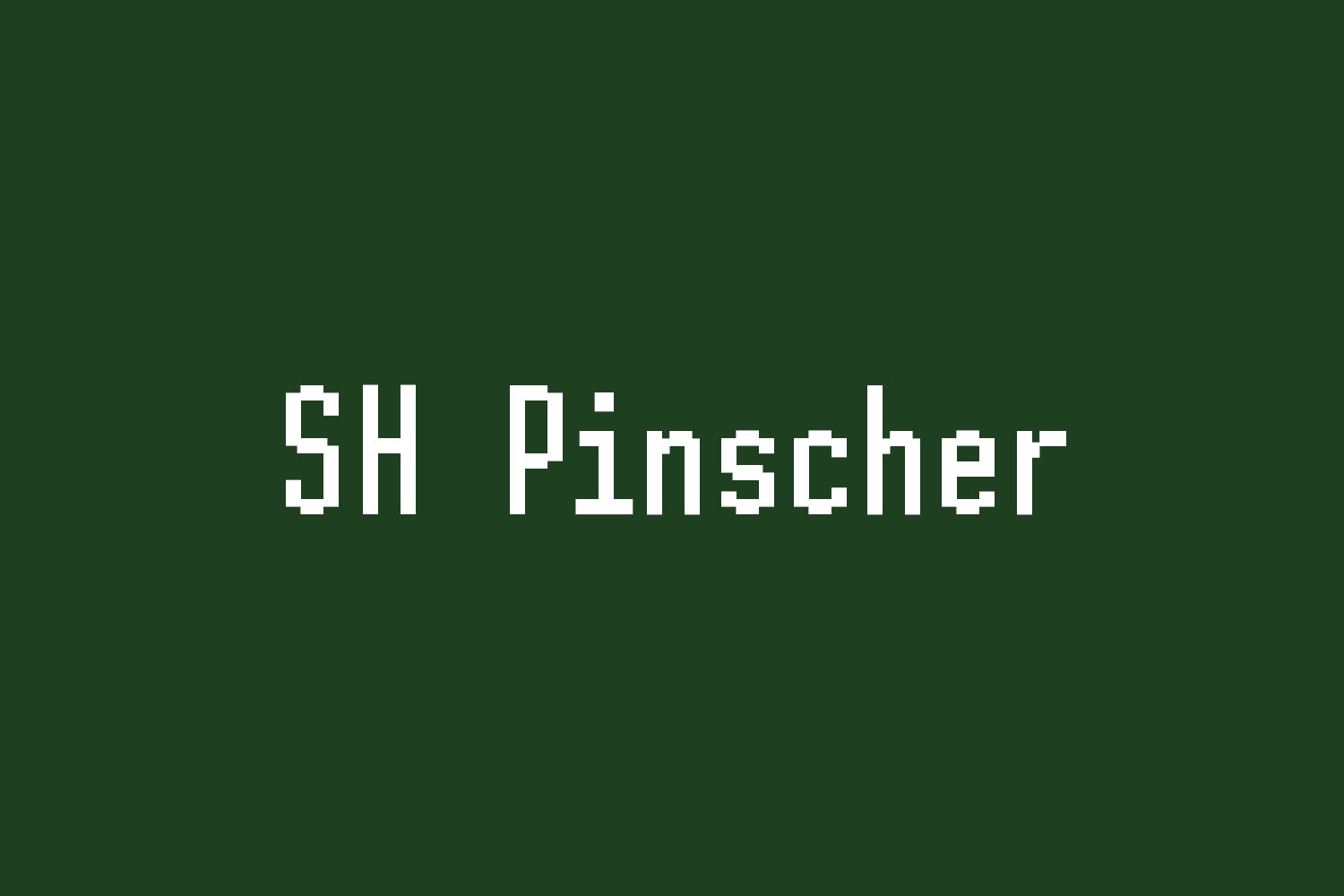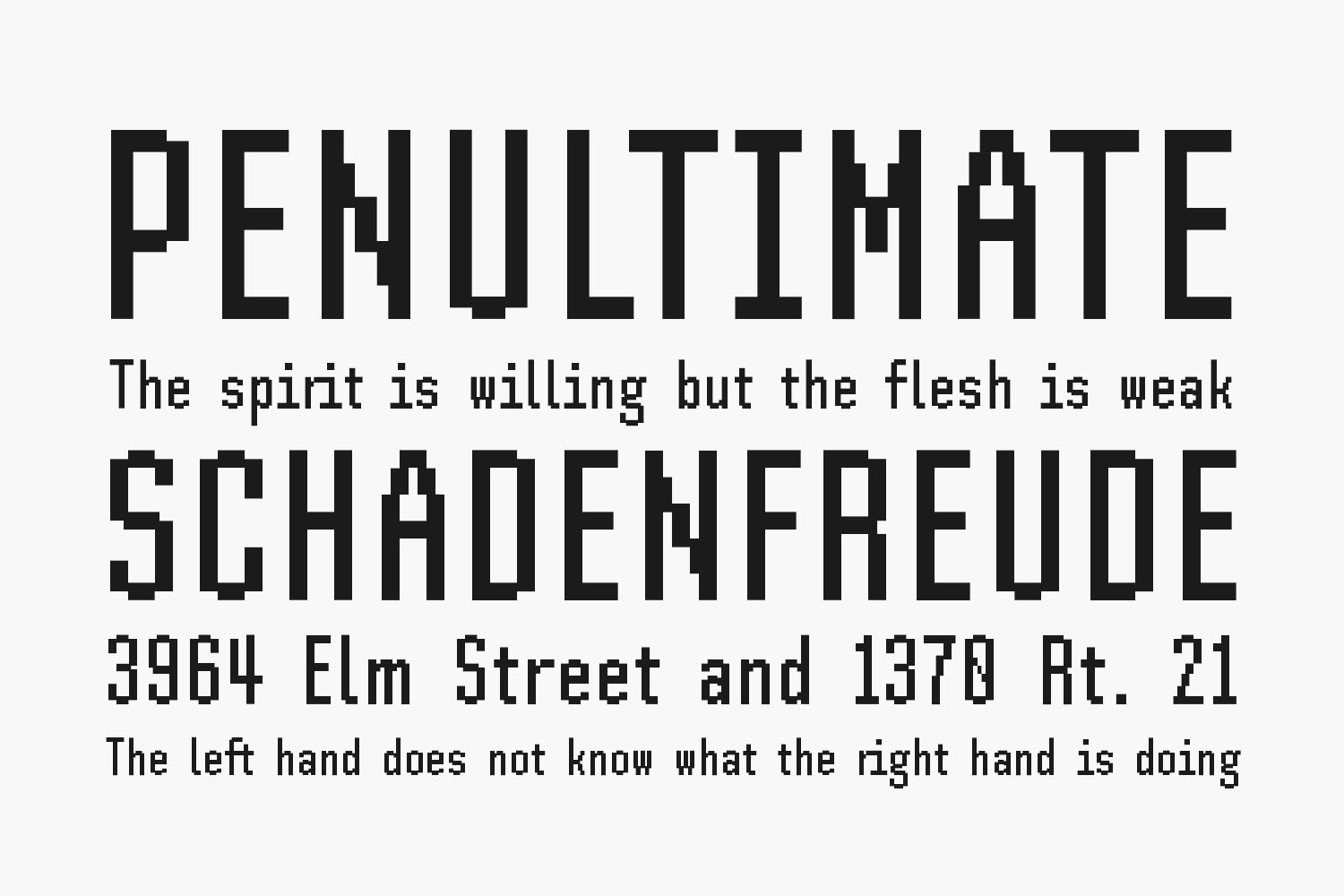
Just like a Doberman Pinscher, SH Pinscher Free Font is slim, elegant, focused, fun, and designed to kill all at the same time. This beast is a bit more typographic than the typical bitmap fonts out in the wild, with its ligatures, small-cap, symbols, supported languages and even emojis.
Ah, ok, so you’ve spotted the fact that SH Pinscher cheats its way to achieve better-optimized legibility and readability than the “real” bitmap fonts. This bad boy will not technically work on bitmap systems, but it’s not like you are likely to be downloading it for a bitmap device according to my statistics anyway. Just consider it a love letter to the classic bitmap graphics.